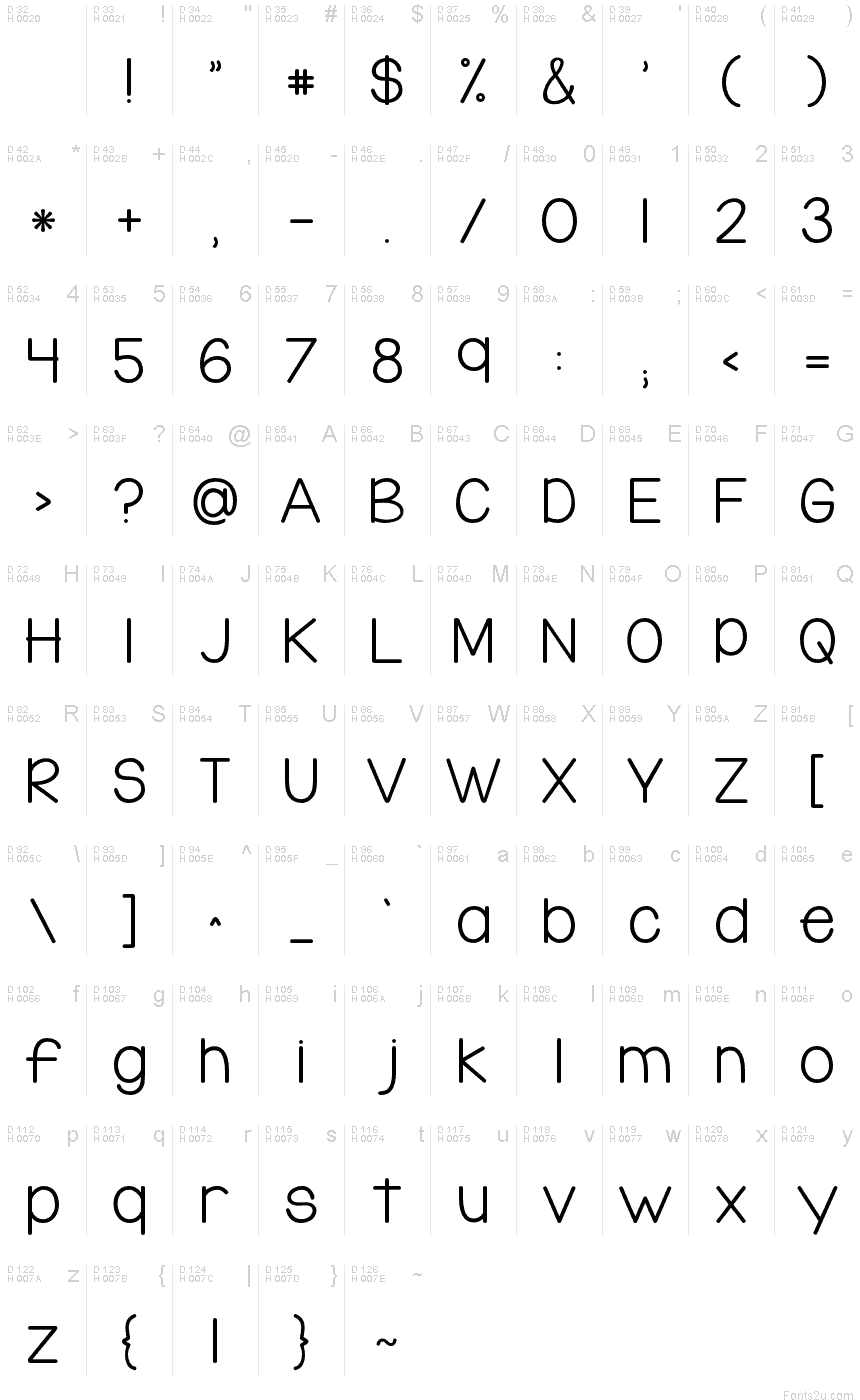
KG Lego House by Kimberly Geswein is a free rounded display font with a light monoline build, near-circular bowls, tall proportions, and an airy contemporary silhouette. Broad curves and crisp joins make the lettering orderly and playful.
A children's brand could use its open shapes on toy packaging, workshop materials, or event branding, especially for young audiences, because the simple geometry feels approachable and precise. In publishing, it suits activity book covers and magazine section titles, where the rounded framework can echo bold diagrams, paper-cut illustrations, and other clean graphic elements.
KG Lego House, designed by Kimberly Geswein, is a free display font.